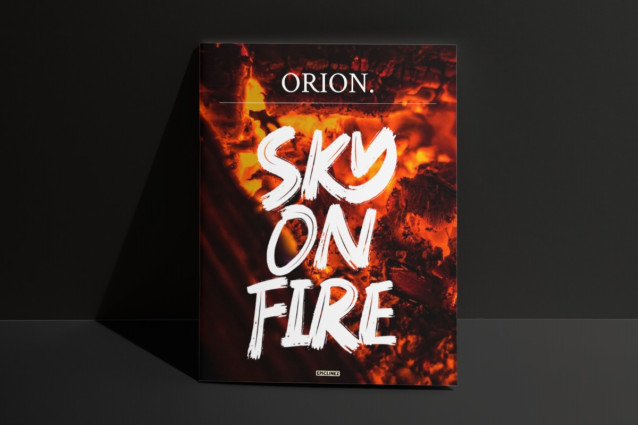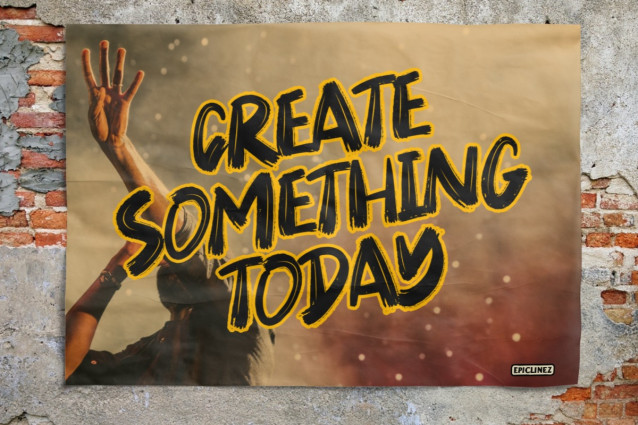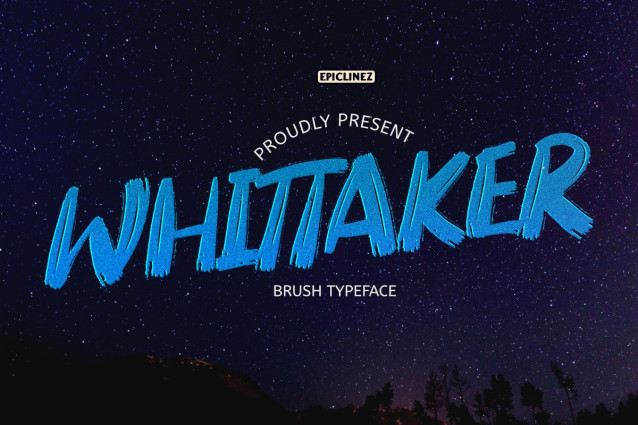
Whittaker Font
Whittaker Font is an authentic brush typeface. This all-caps font is suitable for posters, magazines, apparel, movie headlines, packaging, and more.